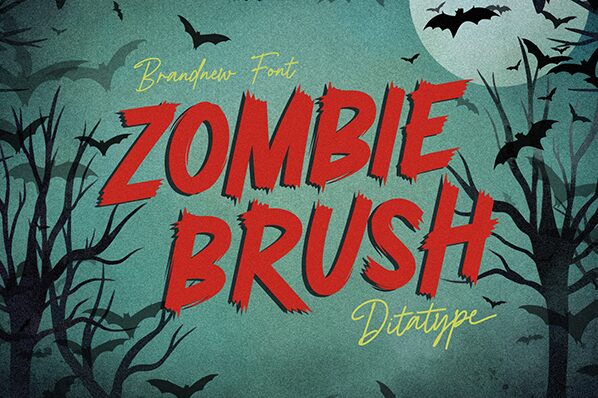
Zombie Brush font by Ditatype is a unique brush-designed and Halloween-styled font. Its grunge appearance is characterized by an energetic and aggressive vibe that makes the viewer feel on edge. The awesome style looks almost 3D with strokes appearing heavy, oppressed, yet well-balanced. Entirely capitalized, this free typeface is multidimensional due to its brush-texture or gangster look.
This font will have obvious use in Halloween posters, magazines targeted at teenagers, youth brands, street art projects, signature designs, sports posters or branding works among other ideas. In addition to these print applications, your online website banners or social media posts can also benefit from Zombie Brush's beautiful integration.